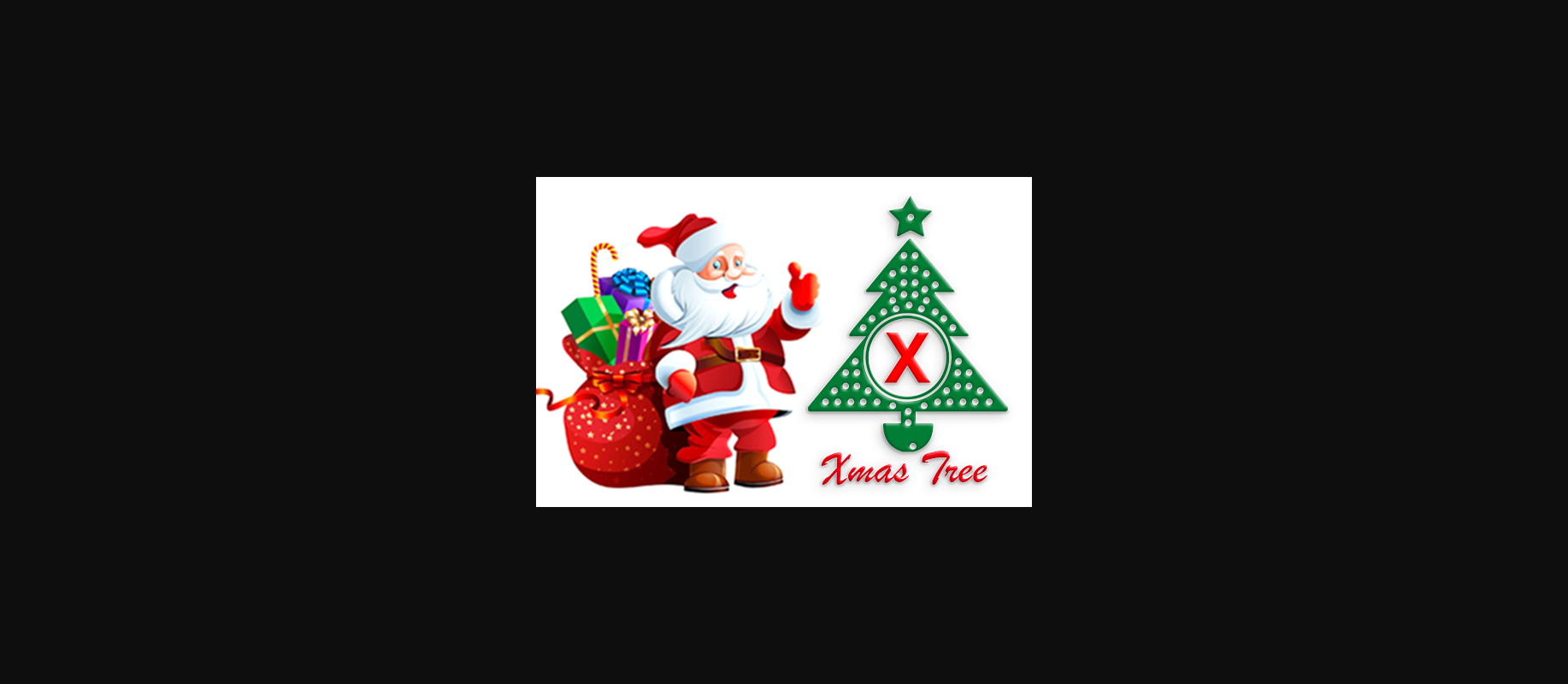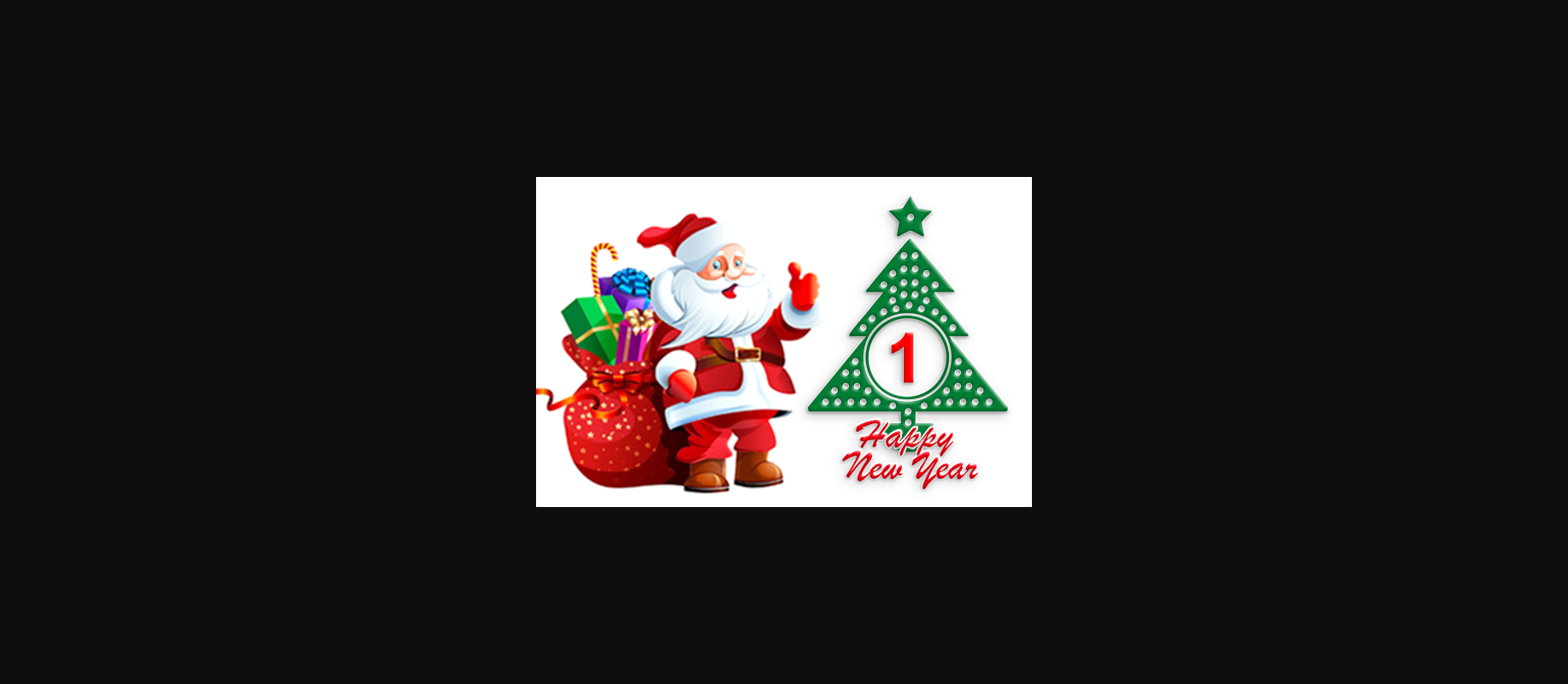
HomeDecorative FontsXmas Tree Font Decorative Fonts Xmas Tree Font FacebookXPinterestWhatsApp 1 of 6 ... Xmas Tree Font Poster 2... Xmas Tree Font Poster 3... Xmas Tree Font Poster 4... Xmas Tree Font Poster 5... Xmas Tree Font Poster 6... About Xmas Tree Font Xmas Tree is a festive and very detailed decorative font that embodies a celebratory vibe in each character. Fall in love with its incredibly versatile style, and use it to create spectacular designs! DOWNLOAD NOW People also explored Stasya Font Little Termite Font Skyeeloft Font Naishila Script Font Dorothy Font Myfrida Regular Font Withdrew Font Hakim Font Honey Moon Script Font 296 0 TagsXmas Tree Font Previous articleChristmas Star FontNext articleChristmas Tree Font LEAVE A REPLY Cancel reply Comment: Please enter your comment! Name:* Please enter your name here Email:* You have entered an incorrect email address! Please enter your email address here Website: Save my name, email, and website in this browser for the next time I comment. Personal Use Free Ardilla Font Personal Use Free Read more about this font Fake Receipt Personal Use Free Read more about this font Zeshane Personal Use Free Read more about this font Boby Personal Use Free Read more about this font BLOG Free Fonts Risk: Why Free Fonts Can Be Dangerous for Designers Free Fonts Risk: Why Free Fonts Can Be Dangerous for Designers Using free fonts is a common practice in web and graphic design. However, the... Best Fonts for YouTube Videos: Make Your Thumbnails Stand Out Modern Sans-Serif Fonts That Brands Love in 2025 Transform Your Website: Elevate Your Typography with 7 Best Web Font Generators